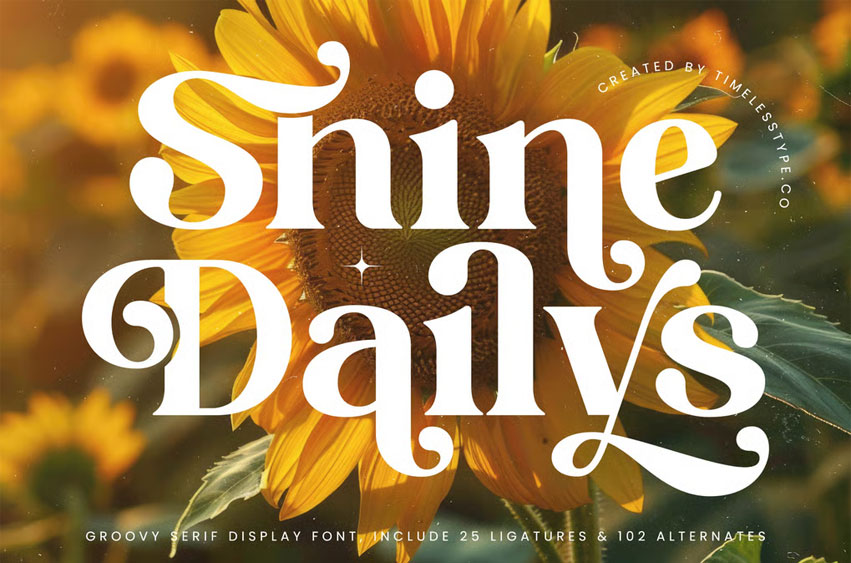
Shine Dailys Font is a groovy serif display font that radiates warmth, charm, and artistic flair. With 25 ligatures and 102 alternates, this typeface perfectly blends vintage elegance and modern energy — ideal for logos, posters, packaging, social media graphics, and lifestyle branding that needs a joyful, stylish touch.
Inspired by retro typography and sun-soaked aesthetics, Shine Dailys combines smooth curves and playful serifs to create a font full of character. Perfect for designers seeking a versatile and expressive font that brings optimism and creativity to every project.